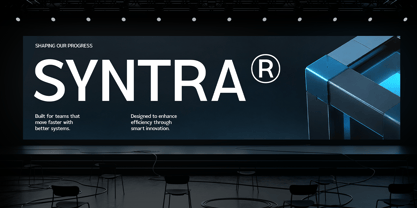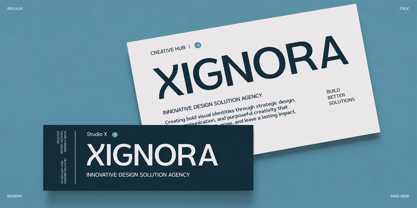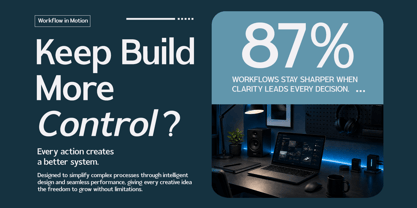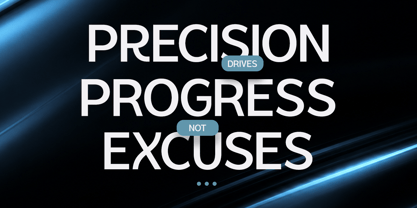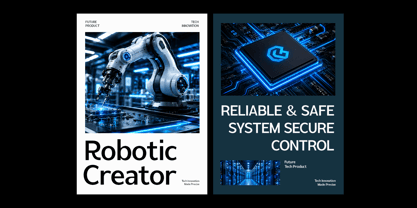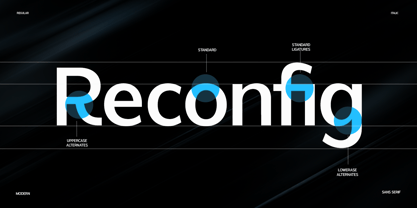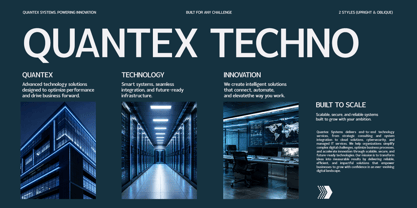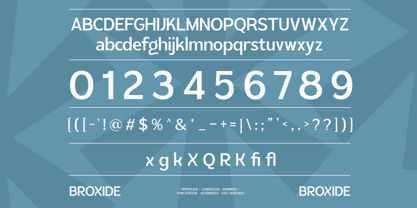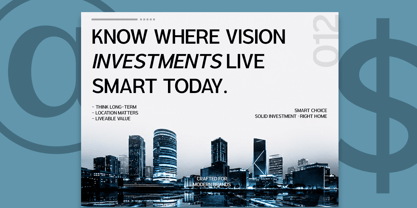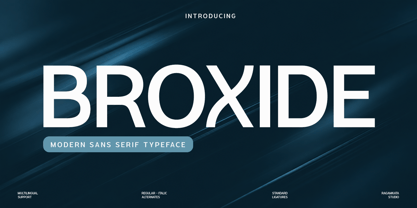
Broxide
Broxide is a modern geometric sans serif font designed for brands that value precision, clarity, and contemporary aesthetics. Featuring clean lines, balanced proportions, and a versatile character set, Broxide delivers a professional look that works seamlessly across digital and print media.
Perfect for technology branding, startups, corporate identities, editorial layouts, UI design, posters, packaging, logos, presentations, websites, and premium marketing materials. Its minimalist appearance makes it an excellent choice for futuristic concepts while maintaining exceptional readability.
Whether you're designing for innovation, architecture, finance, software, automotive, or creative agencies, Broxide helps create bold visual identities with a refined modern edge.
• Regular and Italic
• Stylistic Alternates
• Uppercase and Lowercase
• Number, Symbol, and Punctuation
• Multilingual Support